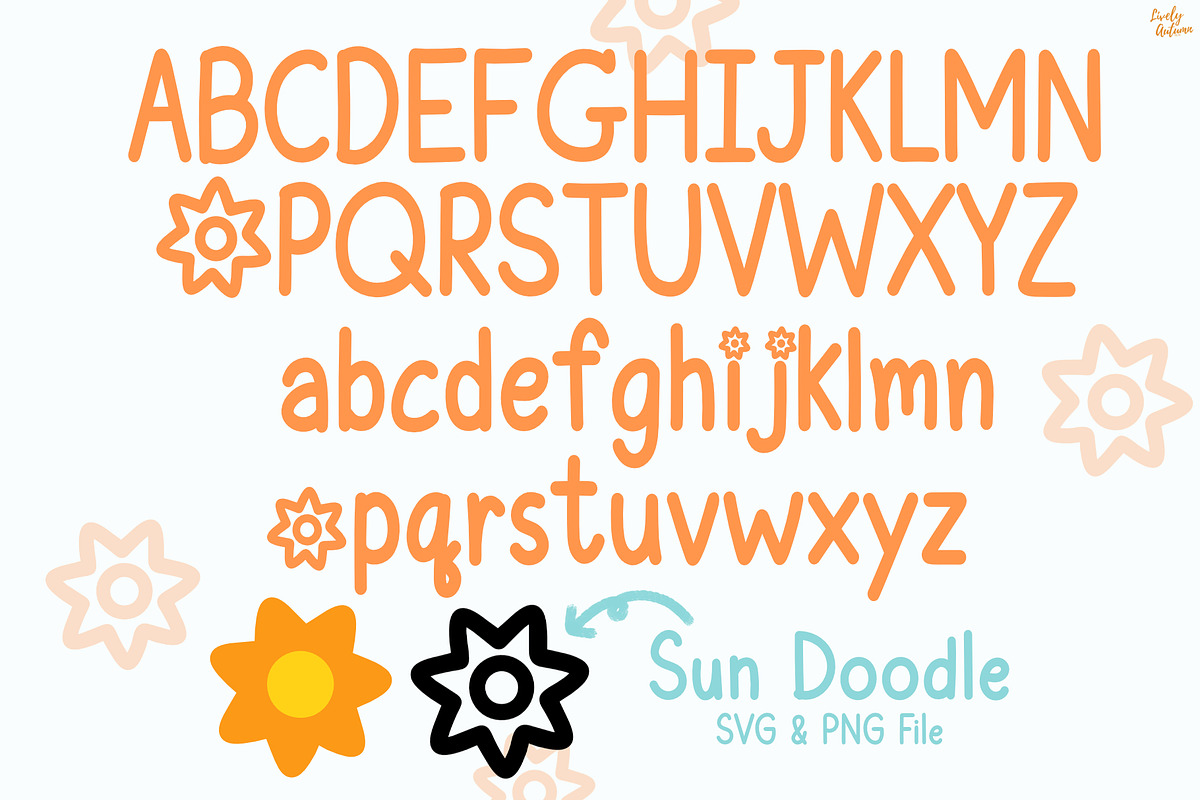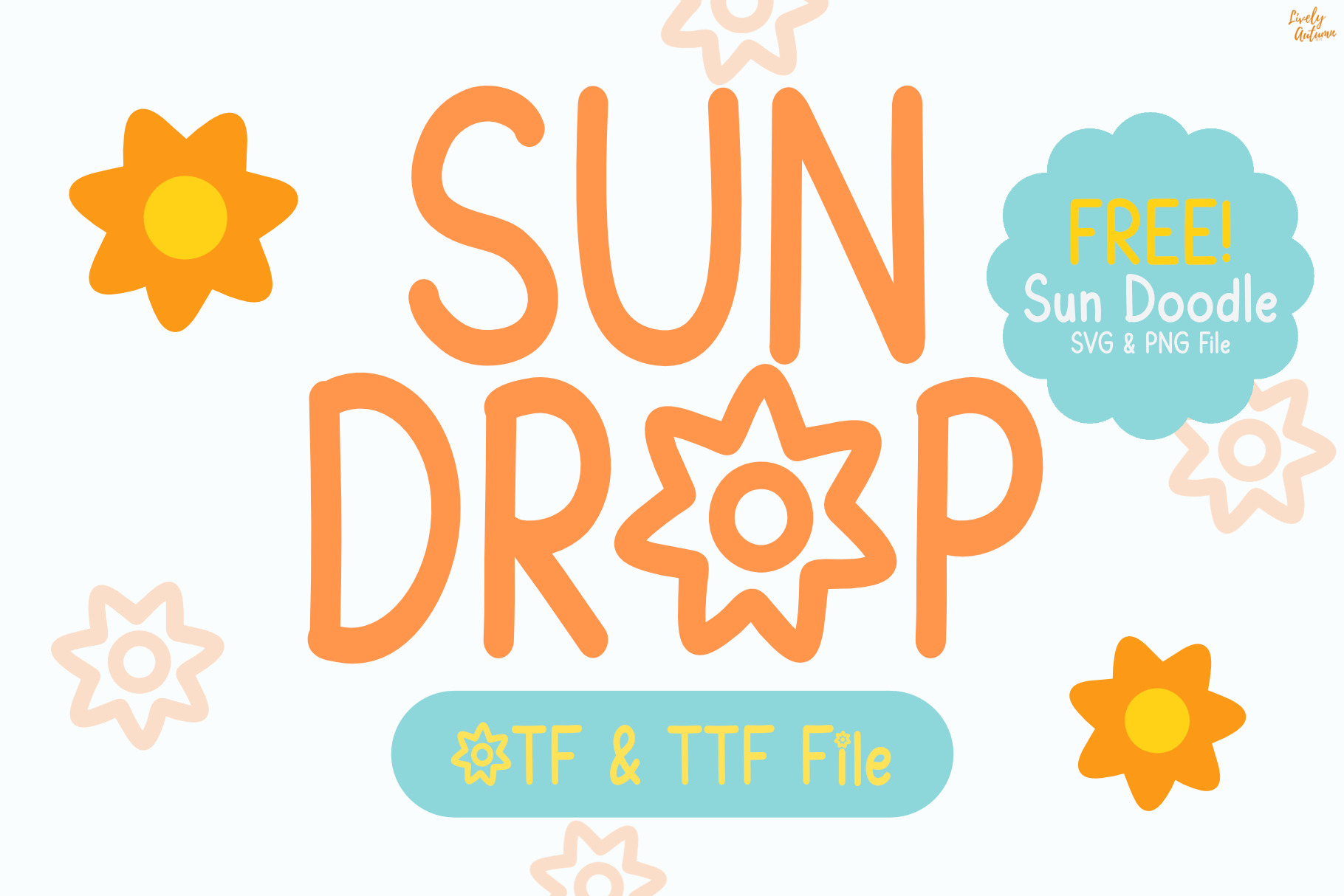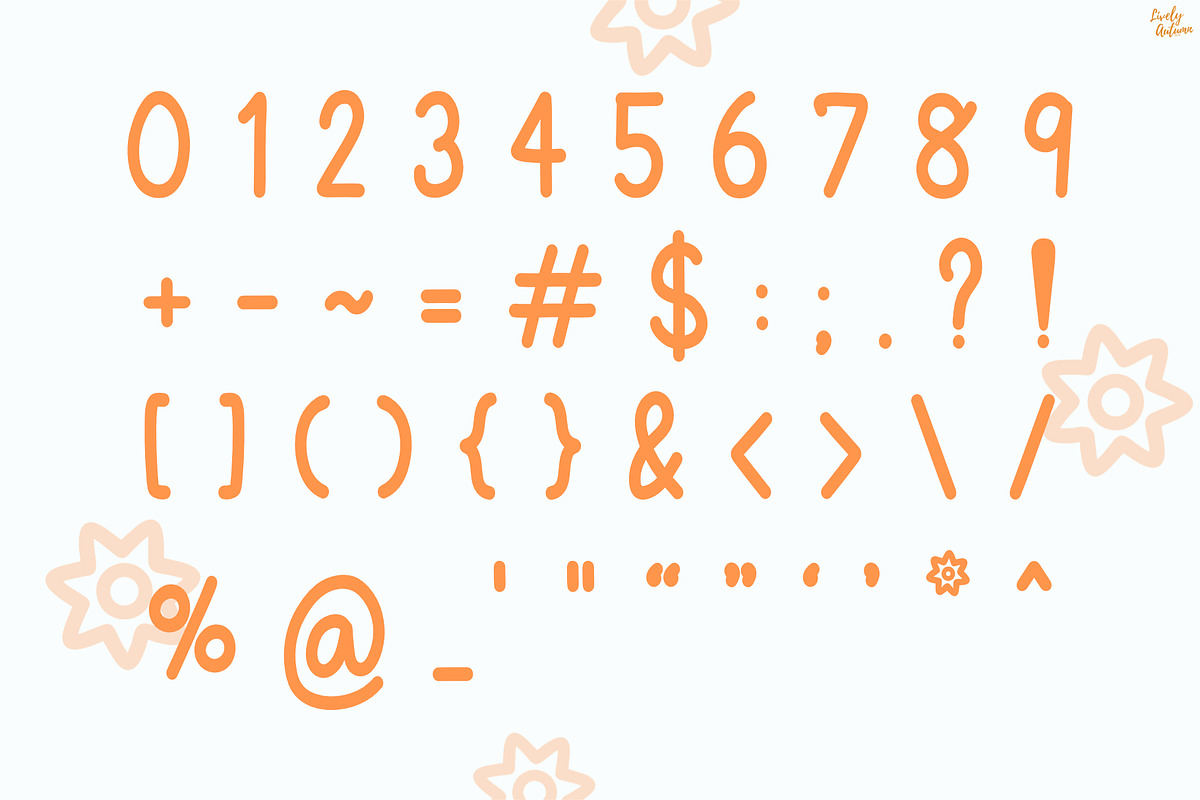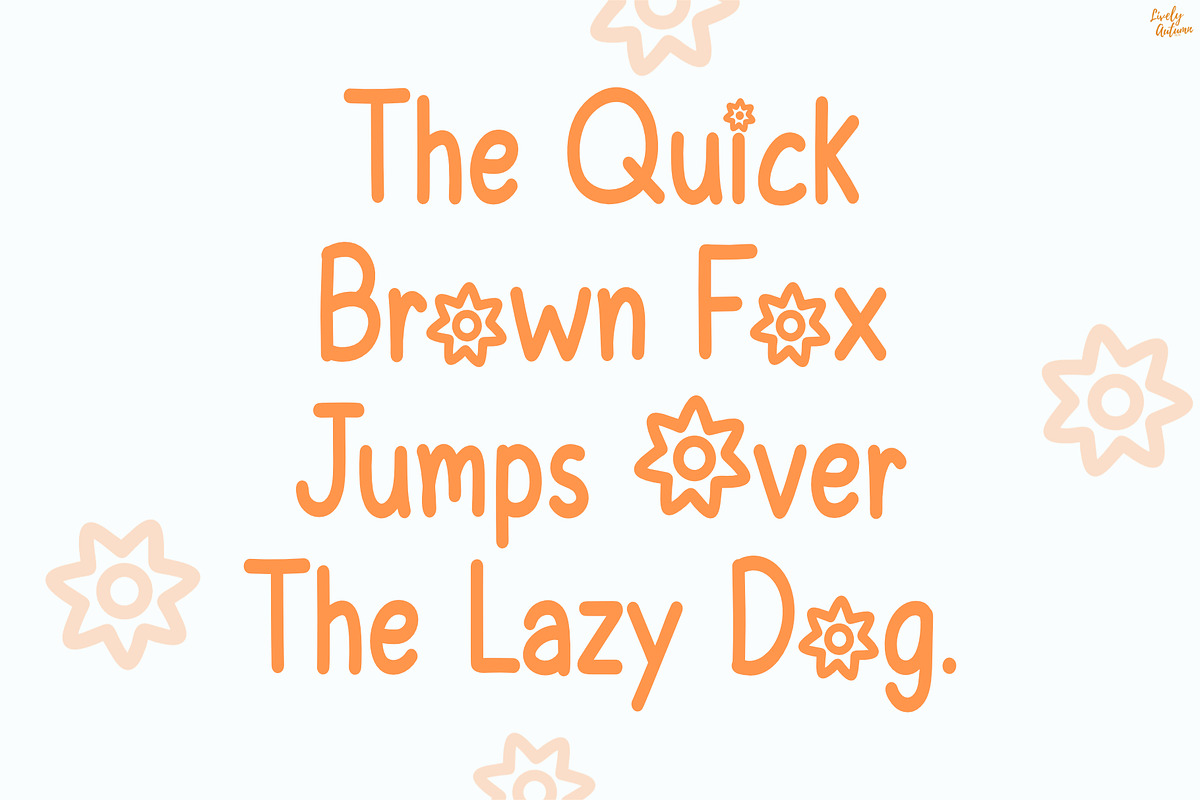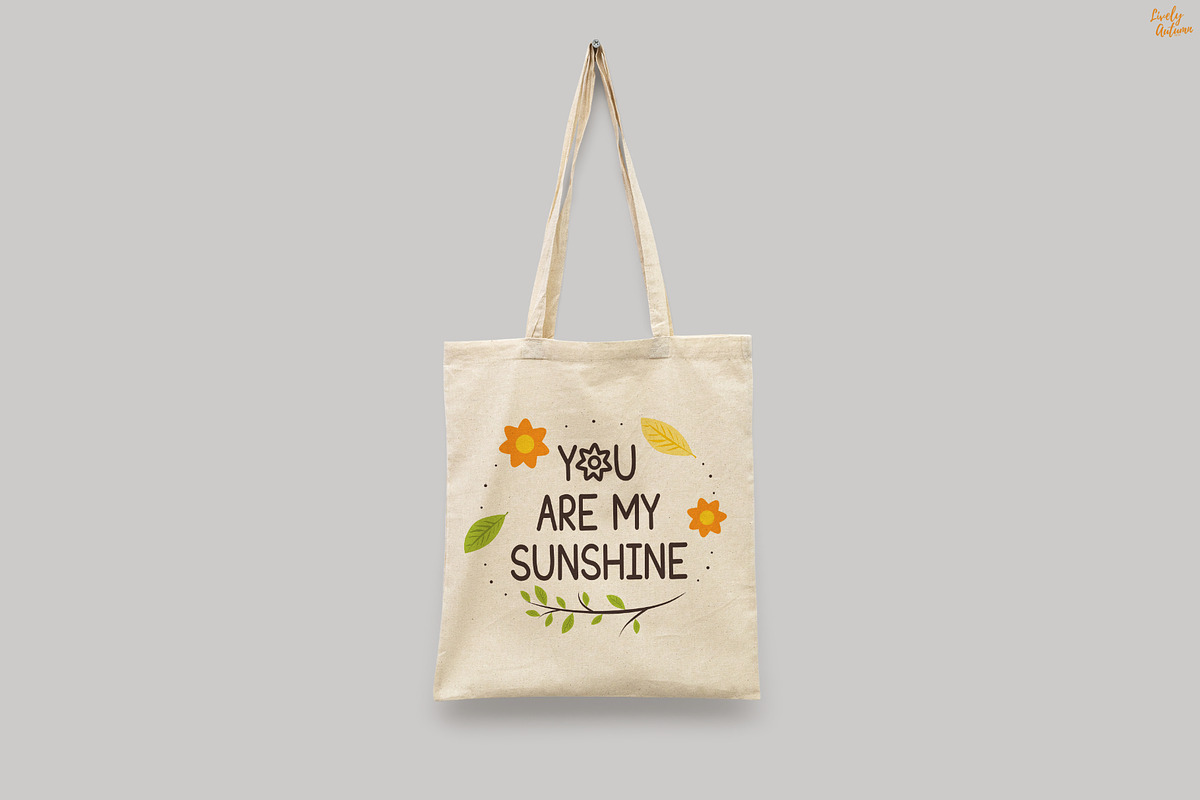
Sundrop | Handwritten font
Sundrop Font is a handwritten font that uses a sun shape as the letter 'O'. A free sun doodle is also included in the download. Perfect for your personal projects and various projects. From invitations to posters, social media graphics, journals, and much more.
- Font includes: uppercase, lowercase, numbers, and punctuation